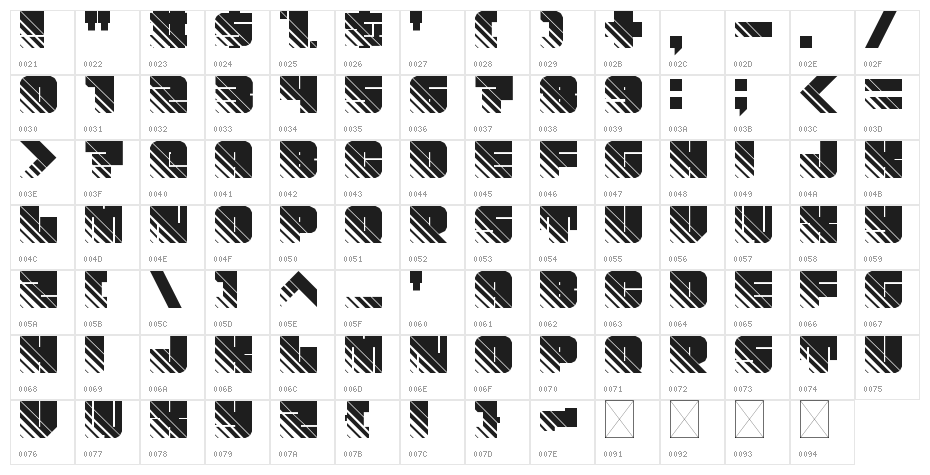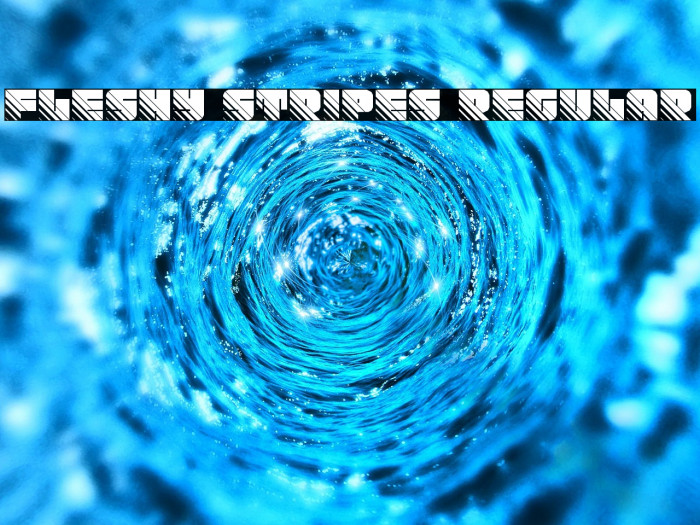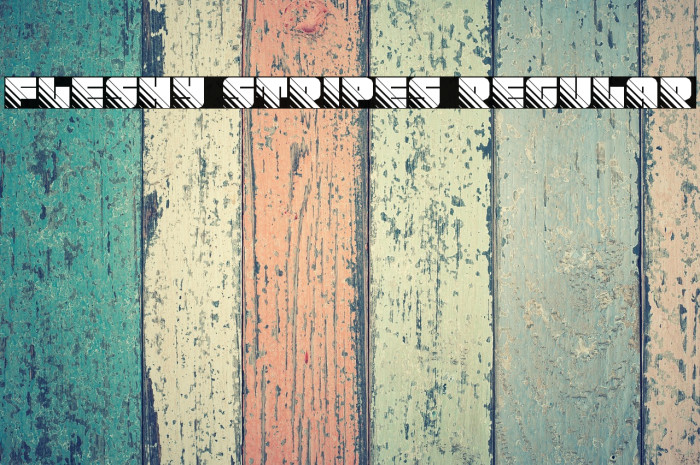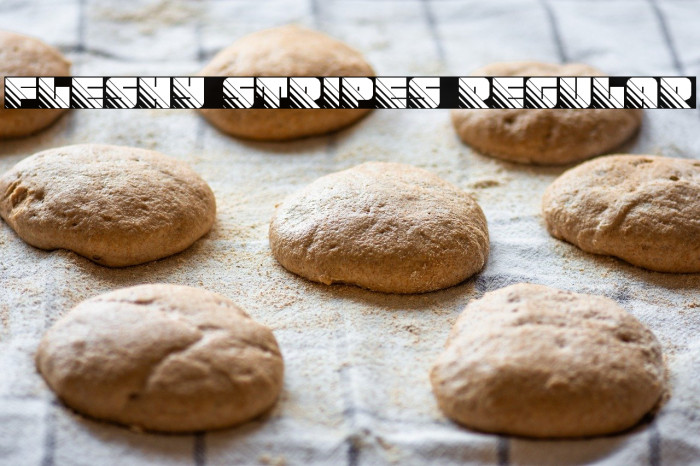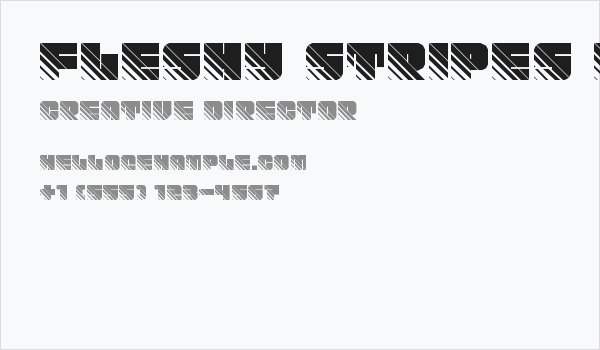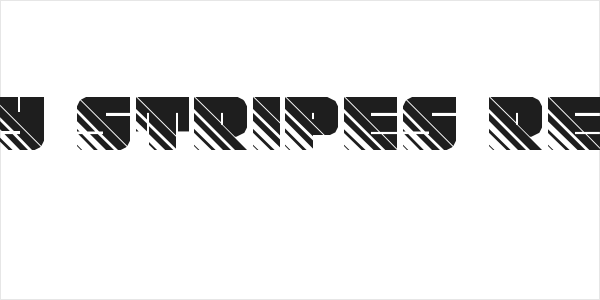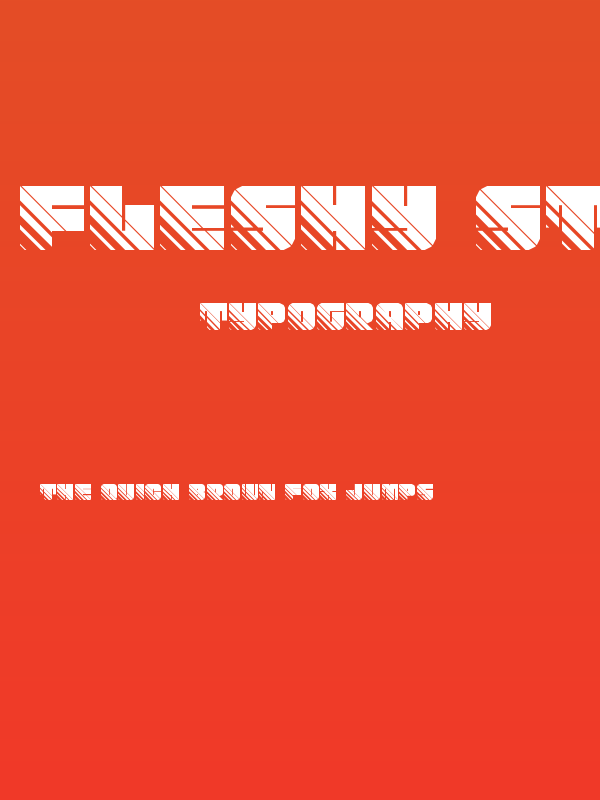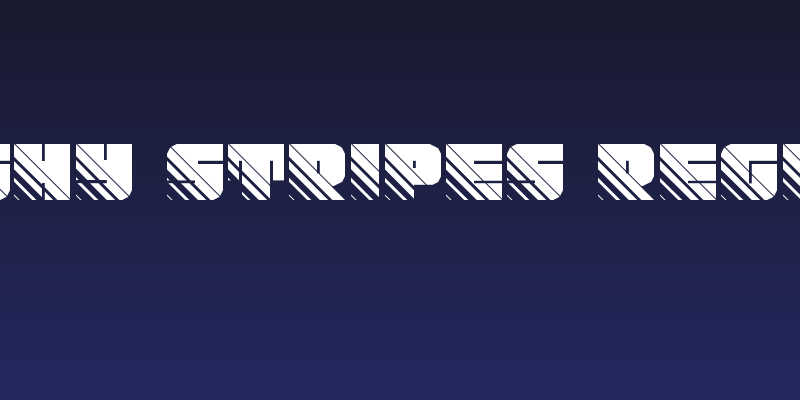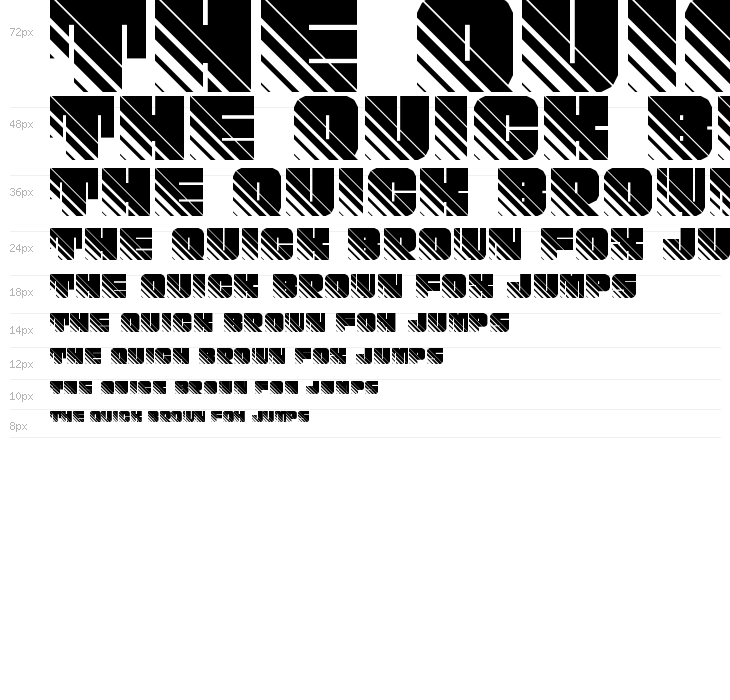
Fleshy Stripes Regular Font
Fleshy Stripes Regular Description
This font features a bold, decorative style with a unique striped pattern running diagonally across each character. The letters are uppercase and lowercase, with numbers and special characters included. The design is eye-catching and modern, making it suitable for projects that require a strong visual impact. The stripes add a dynamic element, giving the font a sense of movement and energy. The overall appearance is bold and striking, perfect for creative and artistic applications.
| Proposed Projects | Ideal for posters, logos, headlines, and any design needing a bold, artistic touch. |